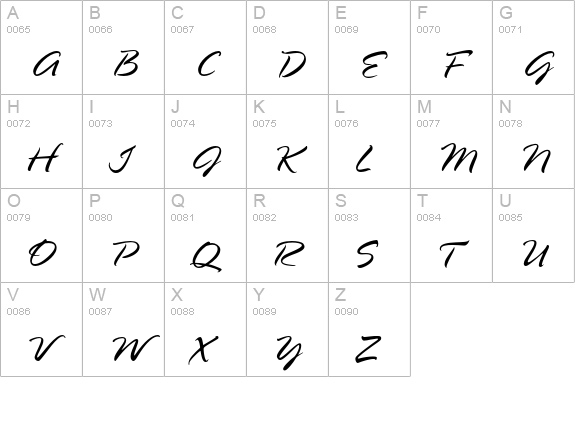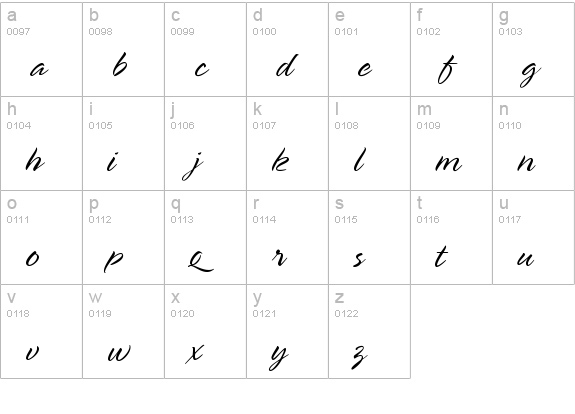
Spring LP Std Light is a refined, elegant variant in the Spring typeface family \xE2\x80\x94 well suited to elegant body text, refined sub-headings, and luxury branding.
Introducing Spring LP Std Light, a captivating and versatile font that breathes life and elegance into any design project. Inspired by the vibrant and rejuvenating season of spring, this font encapsulates the essence of new beginnings and fresh perspectives. With its delicate and graceful letterforms, Spring LP Std Light effortlessly captures attention and adds a touch of sophistication to a wide range of creative endeavors. Whether you're designing a logo, crafting a beautifully formatted document, or enhancing the visual appeal of your website, this font is sure to elevate your work to new heights. But what truly sets Spring LP Std Light apart is its accessibility. This exquisite font is freely available to download at FontsMarket.com, allowing designers and enthusiasts alike to harness the power of this remarkable typeface without any limitations. Crafted with meticulous attention to detail, Spring LP Std Light offers a seamless reading experience, ensuring that your message is conveyed with clarity and elegance. Its gentle curves and intricate detailing make for a truly delightful visual journey, captivating readers and leaving a lasting impression. Whether used in print or digital media, Spring LP Std Light exudes a timeless beauty that effortlessly adapts to any design aesthetic. Its versatility allows it to seamlessly blend with both modern and classic styles, making it a go-to choice for designers seeking a font that can effortlessly complement and enhance their creative vision. So why wait? Experience the sheer beauty and versatility of Spring LP Std Light today. Download this remarkable font for free at FontsMarket.com and unlock a world of creative possibilities. Elevate your designs, captivate your audience, and make a lasting impression with this stunning typeface.